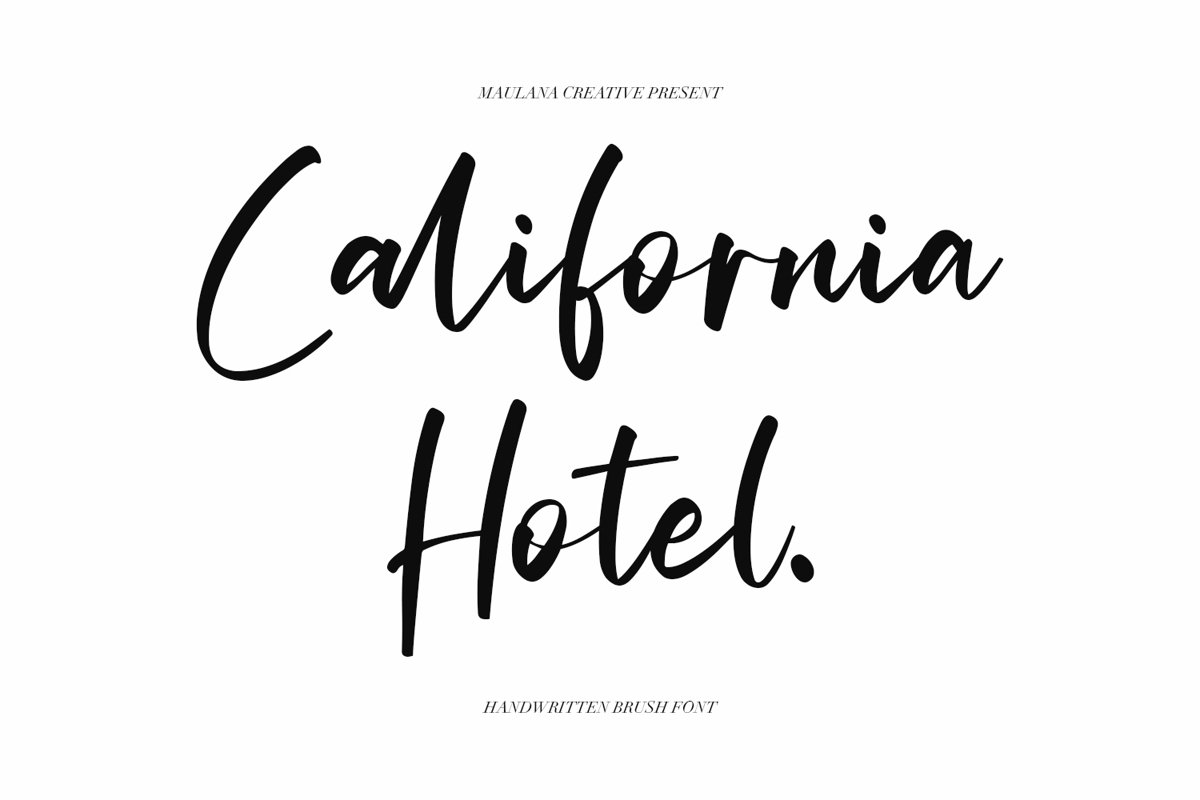
Give your designs an authentic handcrafted feel. "California Hotel" is perfectly suited to signature, stationery, logo, typography quotes, magazine or book cover, website header, clothing, branding, packaging design and more.